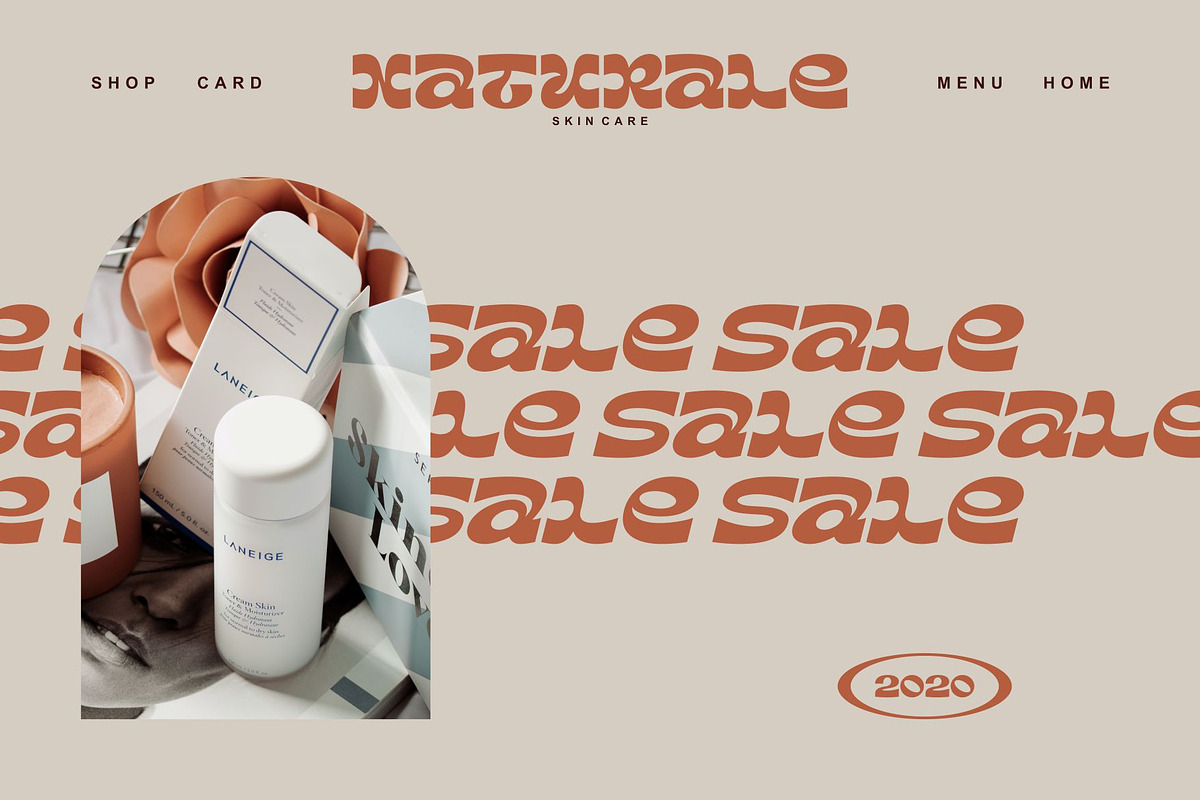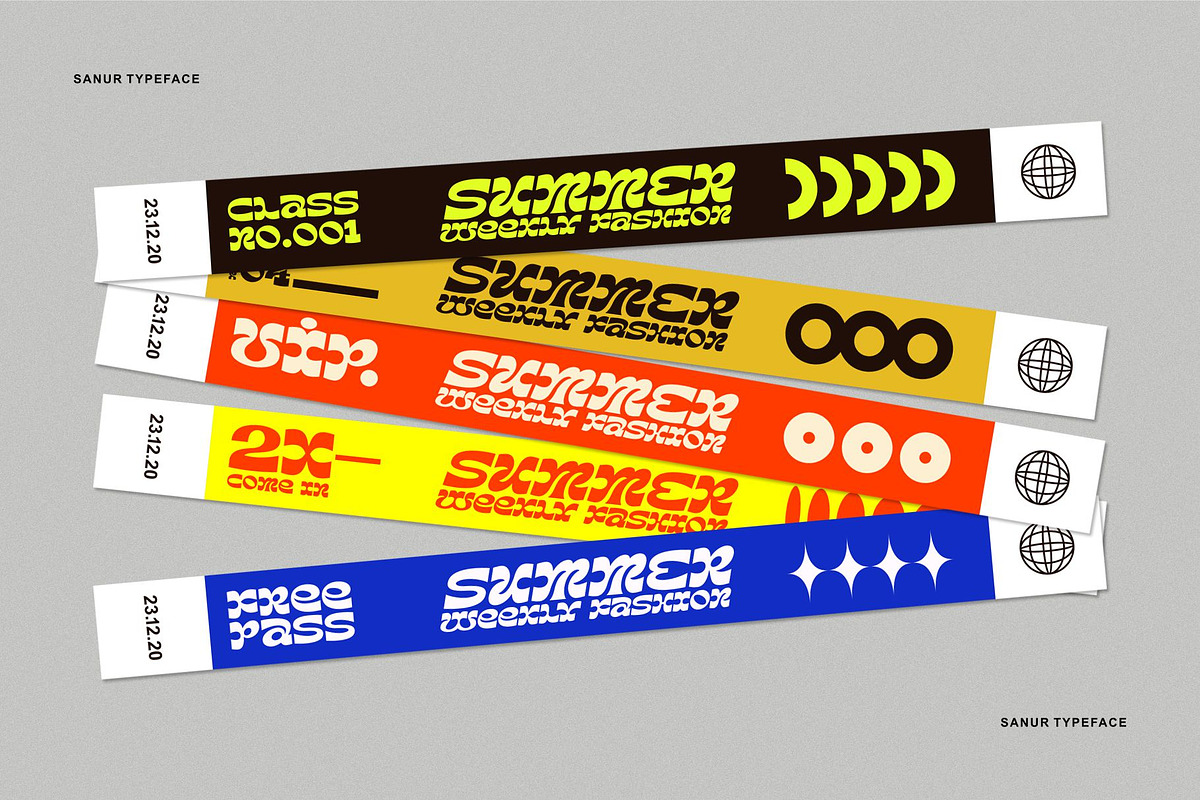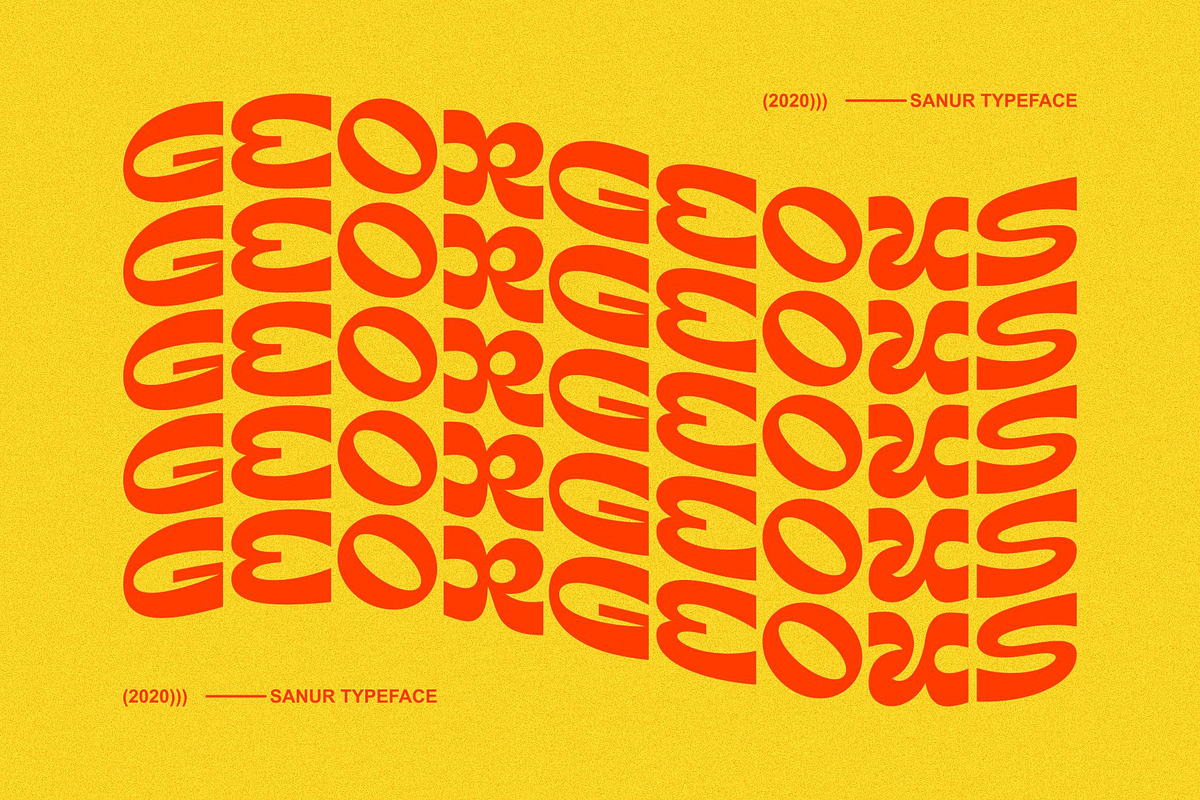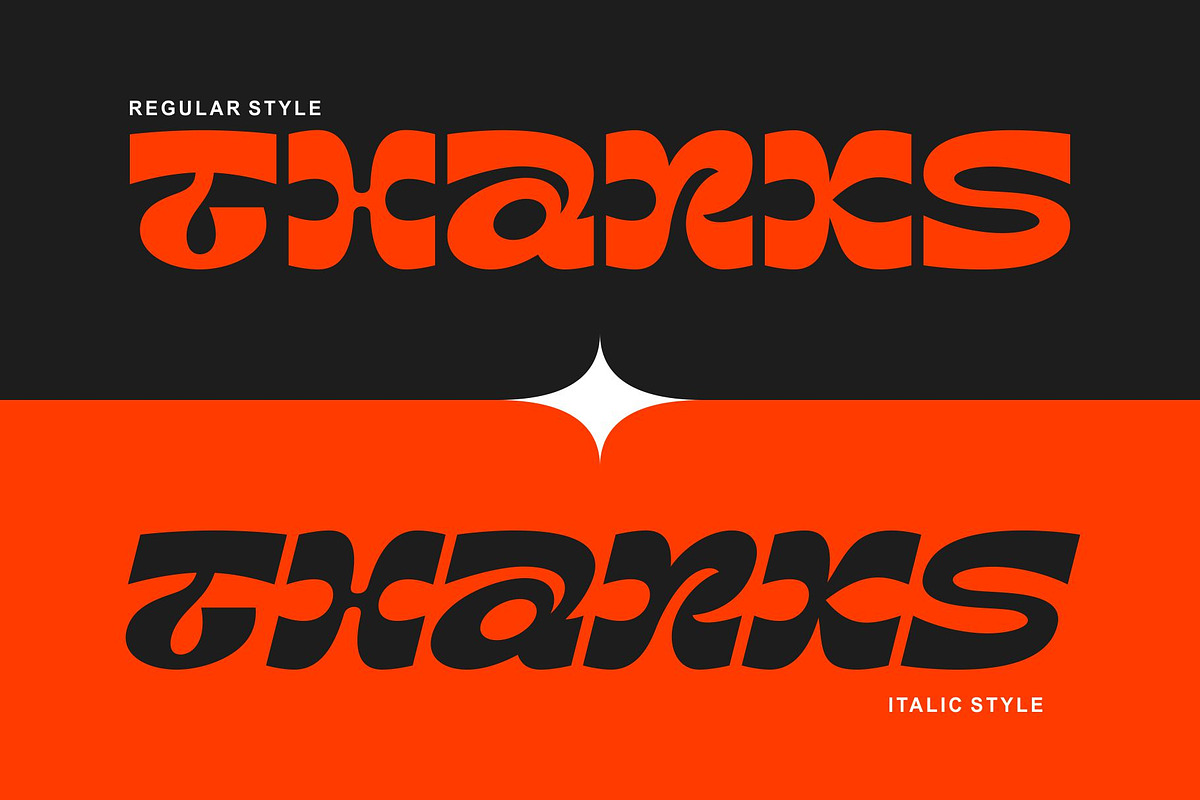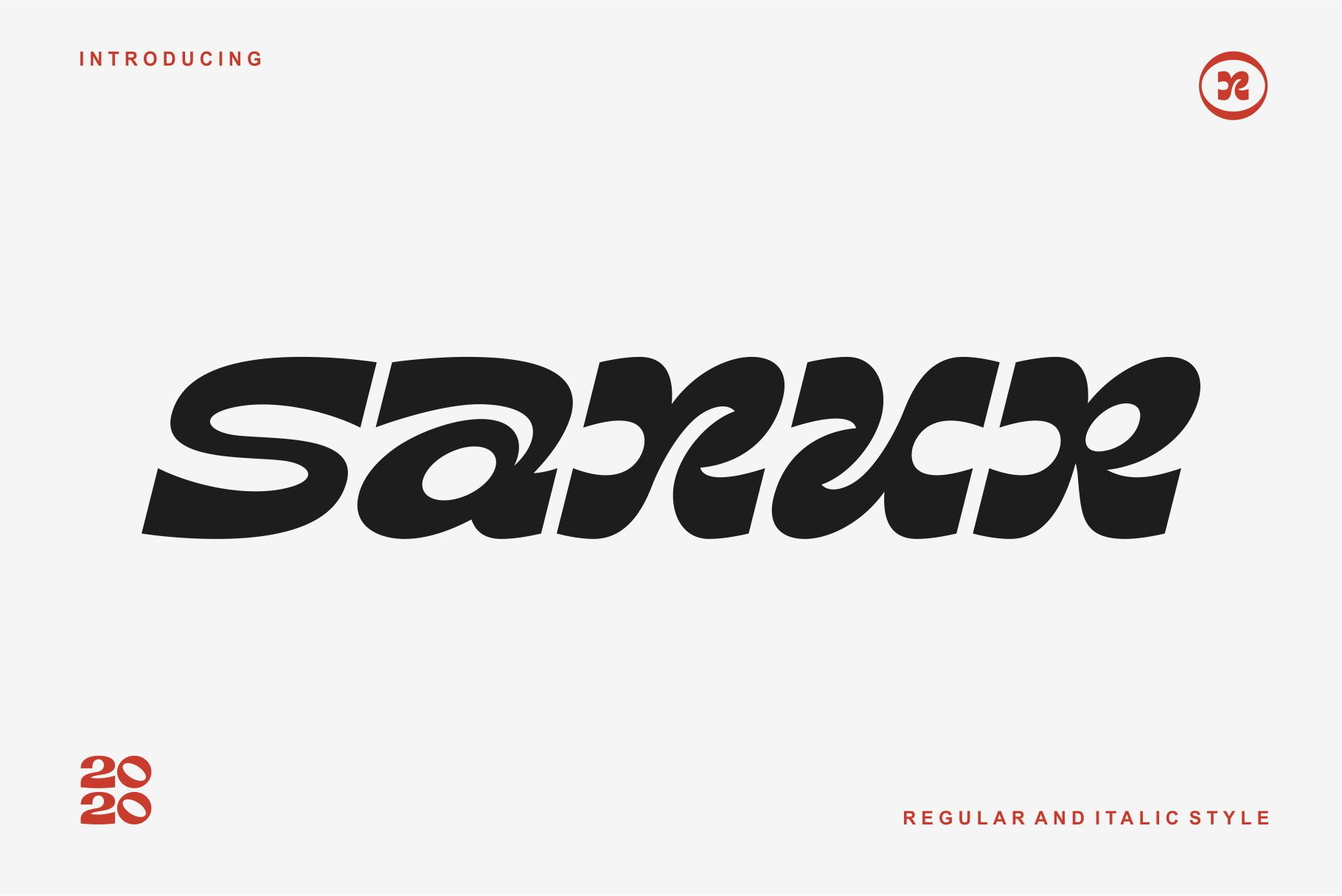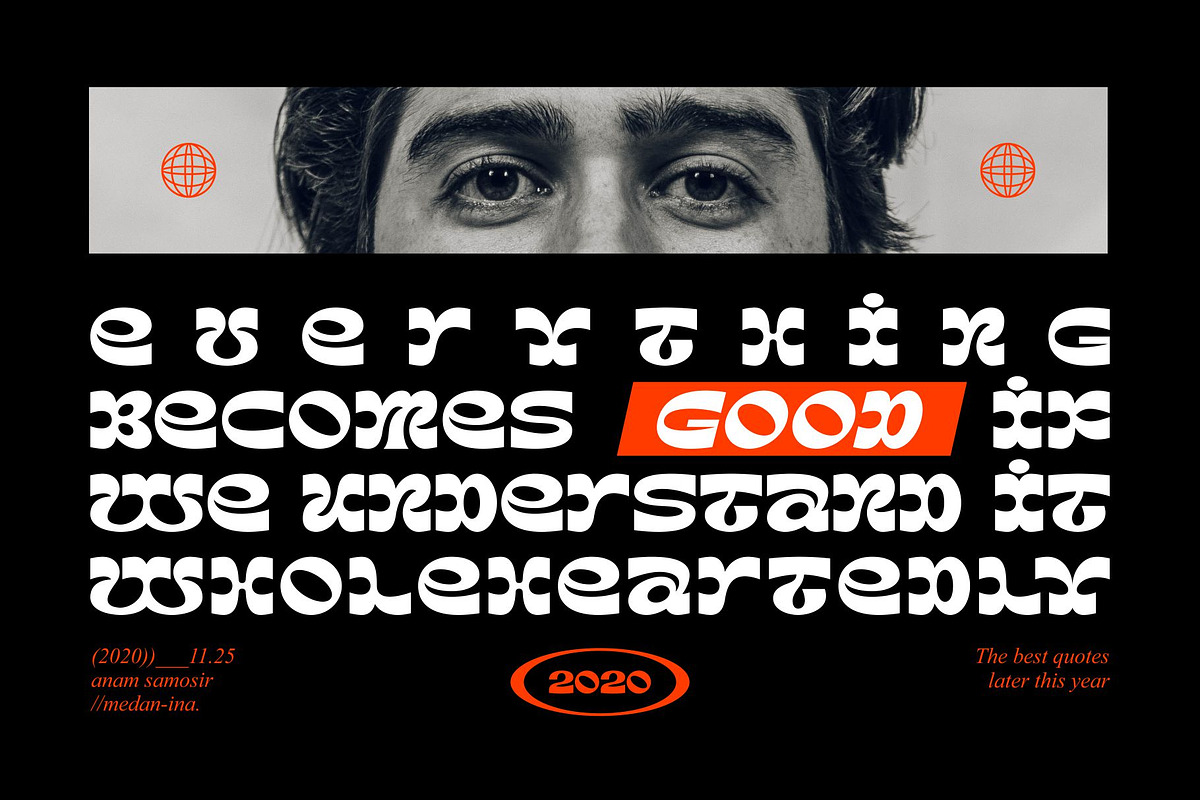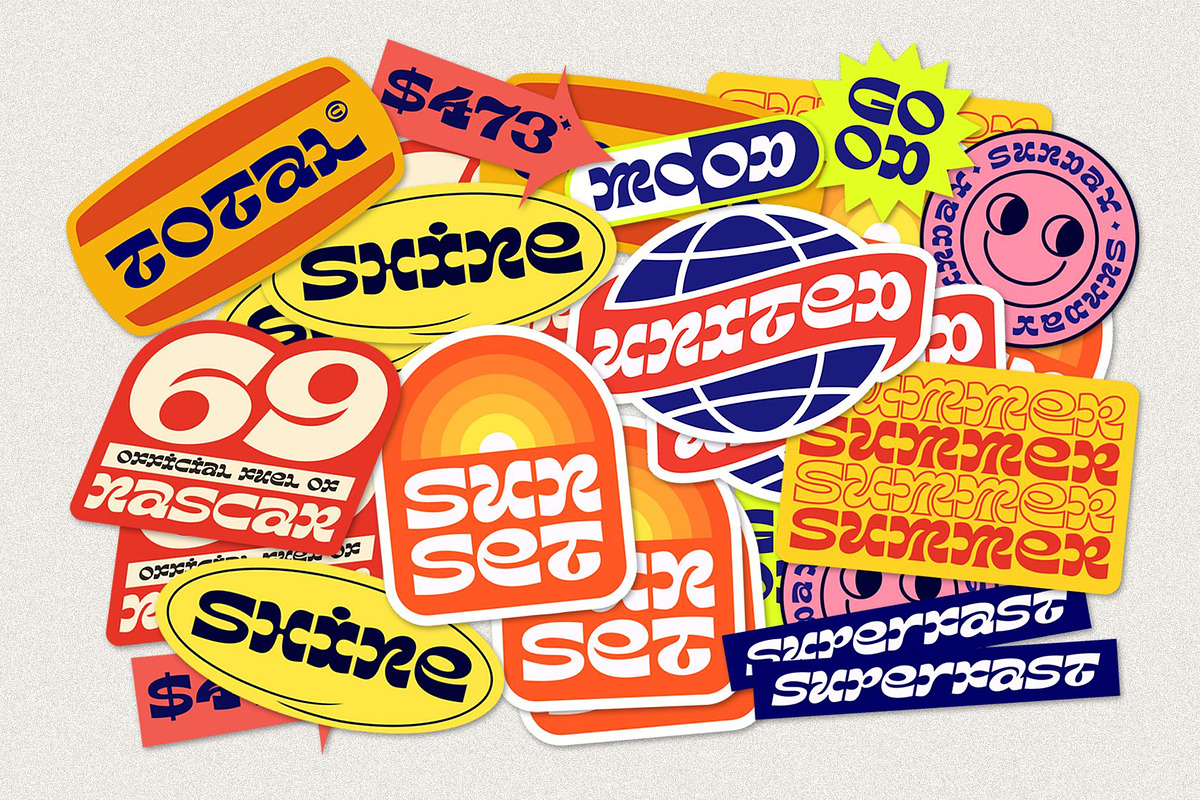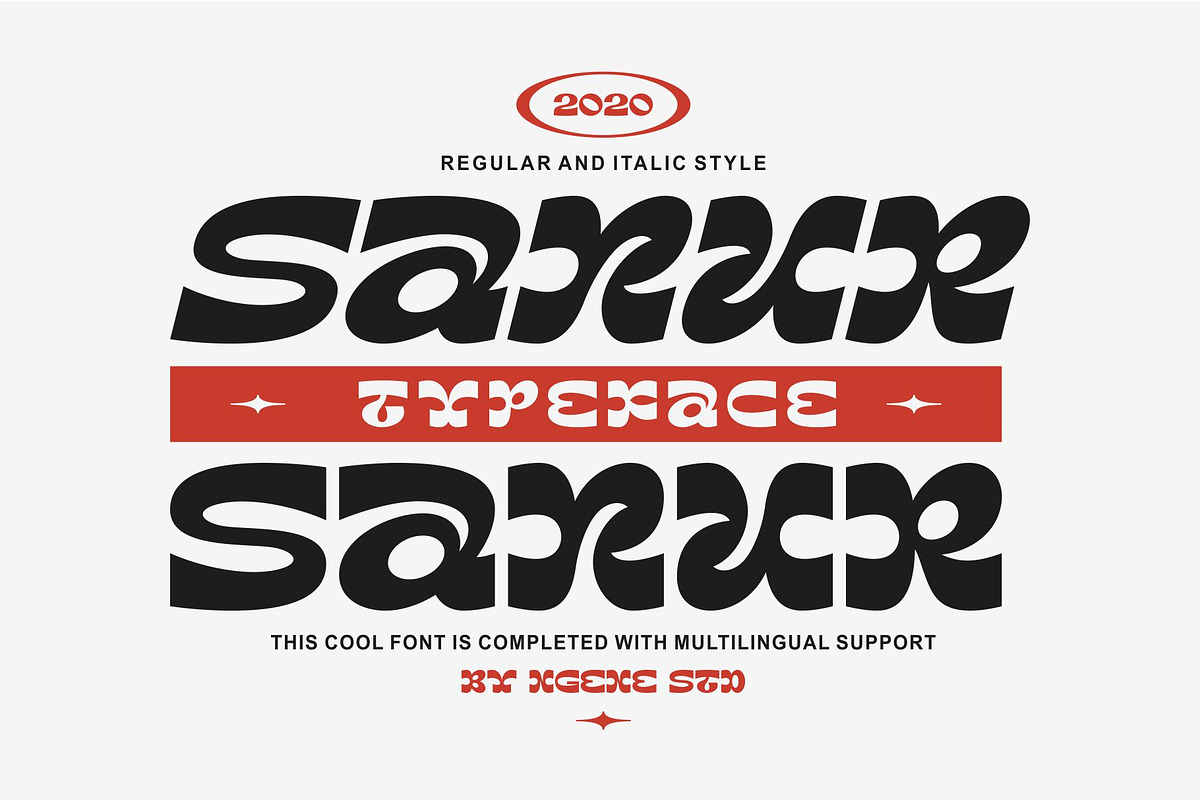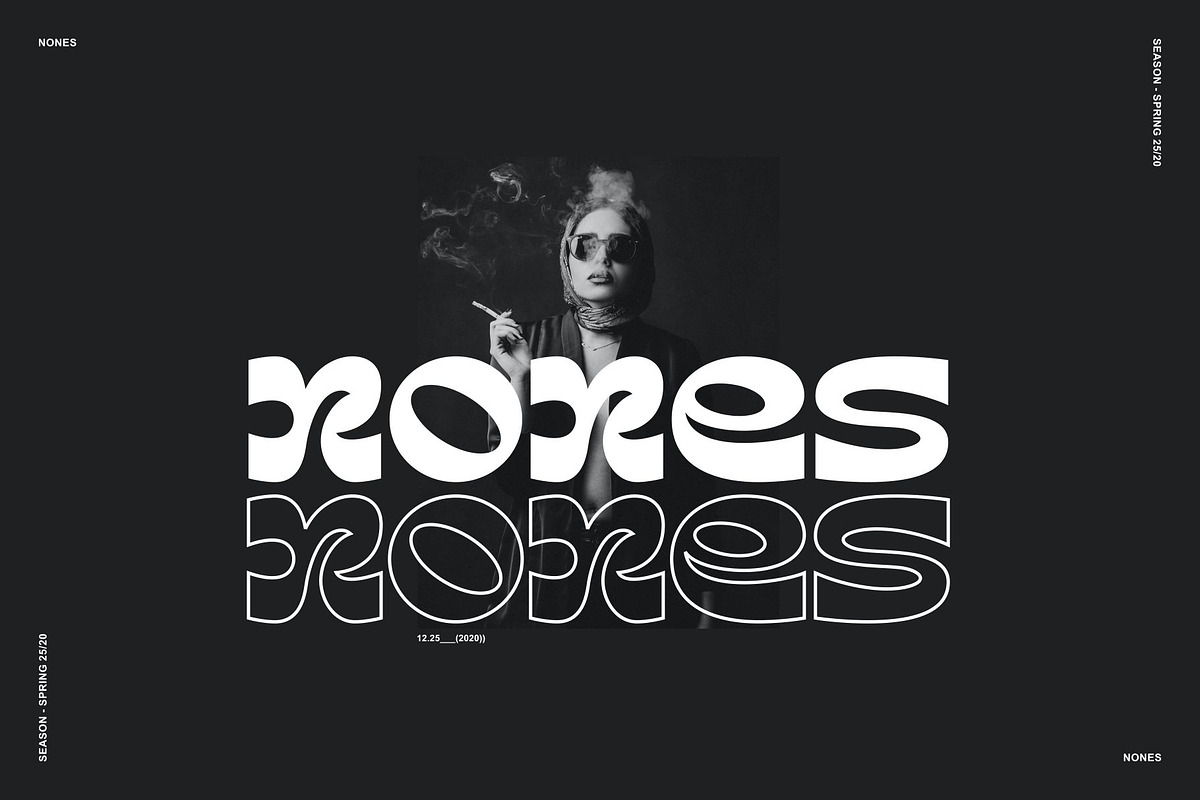
Sanur Font Duo Regular & Italic
INTRODUCING SANUR TYPEFACE
Sanur Typeface is very cool, it has two types of fonts, namely regular font and italic style. You will get this font with the OTF format only, his font also has language support. Any type of design you want will be more perfect if you use this font.
Sanur Typeface is very suitable if you use it for logo design, badges, web layouts, headers, packaging and many others.